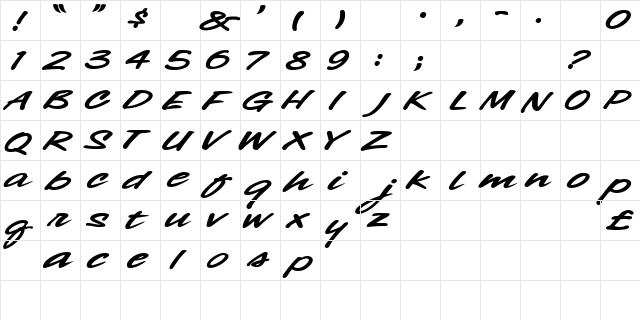
ChicagoStyleDNA Regular
Design Context for ChicagoStyleDNA Typeface
ChicagoStyleDNA is a composed and adaptable typeface that performs quietly and consistently across a wide range of design contexts.